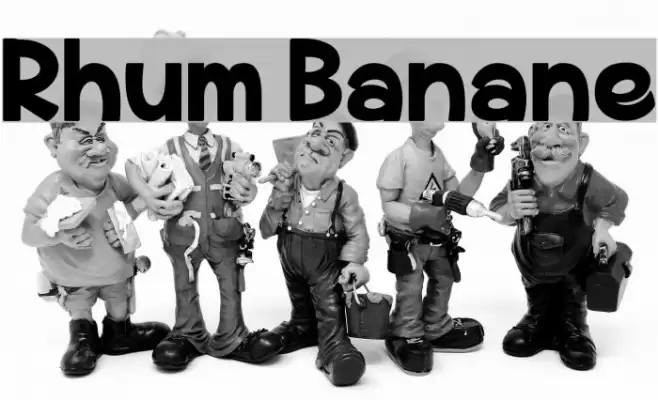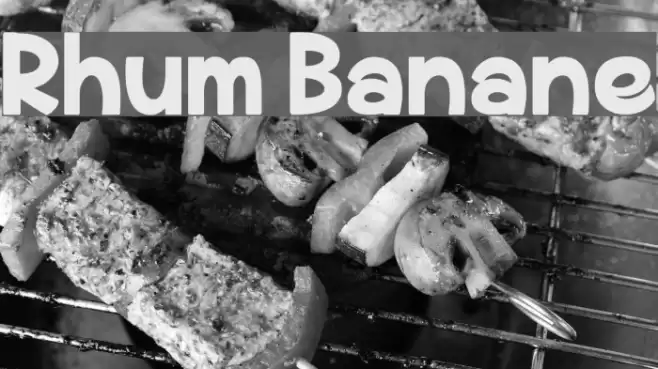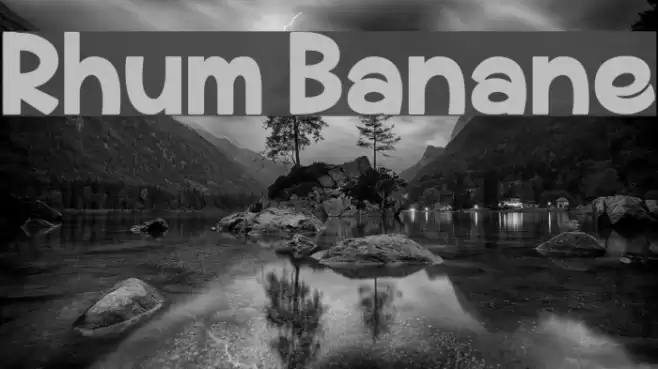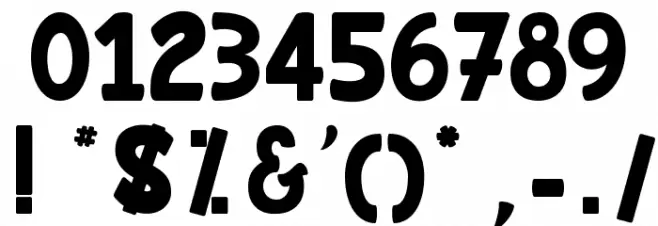
Rhum Banane Font
Rhum Banane Description
This font features a bold and playful design with rounded edges and a slightly condensed appearance. The characters are thick and uniform, providing a strong visual impact. The uppercase letters are slightly taller than the lowercase, maintaining a consistent width throughout. The numbers and special characters follow the same bold style, ensuring readability and a cohesive look. The font's playful nature makes it suitable for creative and informal projects, offering a friendly and approachable aesthetic.
A bold, playful font with rounded edges and a slightly condensed style from Uncategorized fonts.
- Proposed Projects: Ideal for children's books, playful branding, posters, and informal invitations.
- Overall Style: Playful